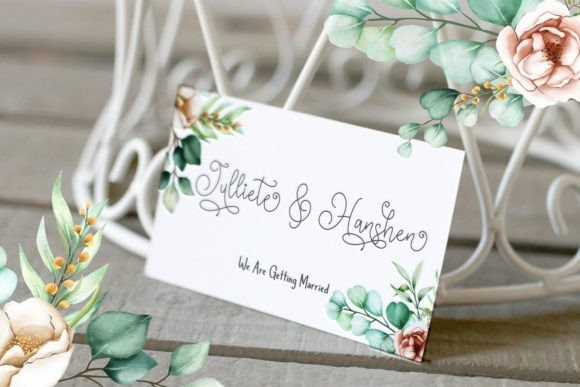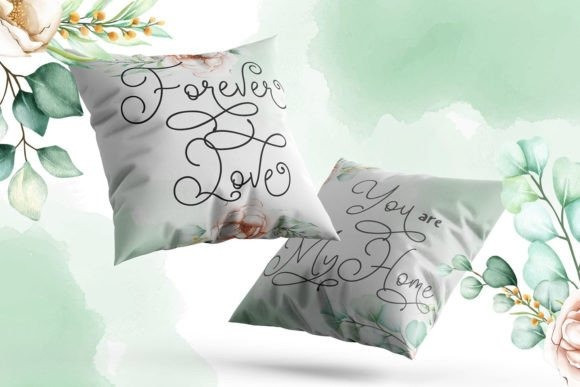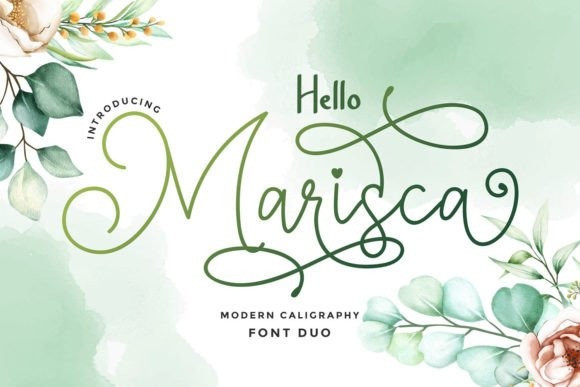
Hello Marisca Font
Hello Marisca Font is an exquisite handwritten font duo (script and sans), masterfully designed to become a true favorite. It maintains its classy calligraphic influences while feeling contemporary and fresh. Fall in love with it and bring your projects to the highest levels! This font is PUA encoded which means you can access all the glyphs and ligatures with ease!